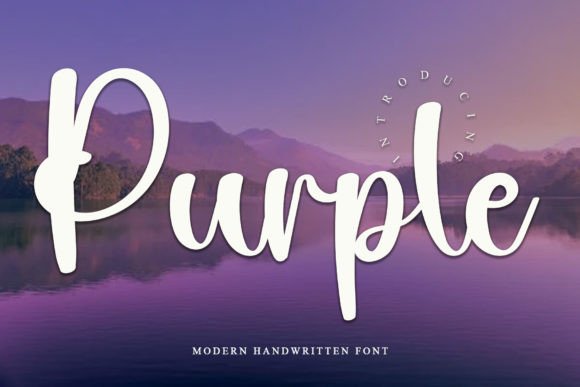
Dive into the world of Purple Font, a captivating script font family that dances off the page with its enchanting charm and playful elegance. This handcrafted masterpiece, brought to life by the creative minds at PiPi Creative, is meticulously designed to make your words come alive, transforming your designs into breathtaking works of art.
With its innate allure, Purple Font is the perfect companion for billboard designs, where every letter commands attention and captivates the eyes of passersby. Its graceful curves and flowing lines evoke a sense of movement and dynamism, ensuring your message stands out amidst the visual clutter.
Imagine your billboard adorned with the captivating beauty of Purple Font, like a vibrant tapestry of words that beckons onlookers to engage with your message. Its inherent charm draws them in, encouraging them to explore the depths of your creativity and immerse themselves in the story you're telling.
Beyond billboards, Purple Font weaves its magic across a myriad of design projects, from stunning posters and eye-catching brochures to mesmerizing social media graphics and enchanting invitations. Its versatility knows no bounds, adapting seamlessly to any canvas you choose, adding a touch of sophistication and elegance to every creation.
The Purple Font family is an expression of artistry, a testament to the power of creativity. It's a font that speaks to the heart, leaving an indelible mark on the minds of those who encounter it. Unleash your imagination and let Purple Font guide you on a journey of visual storytelling, where every design becomes a masterpiece.